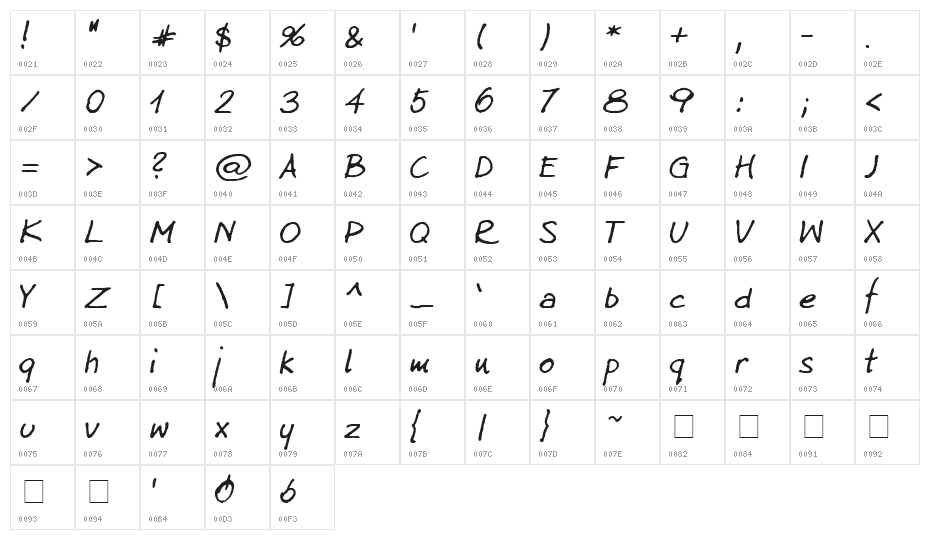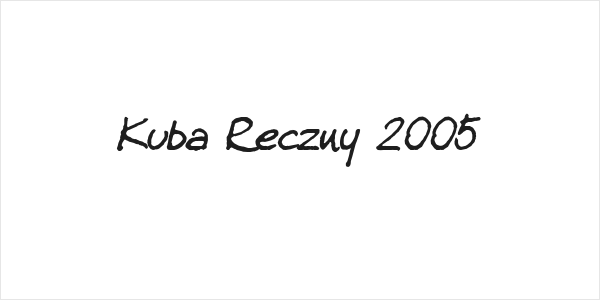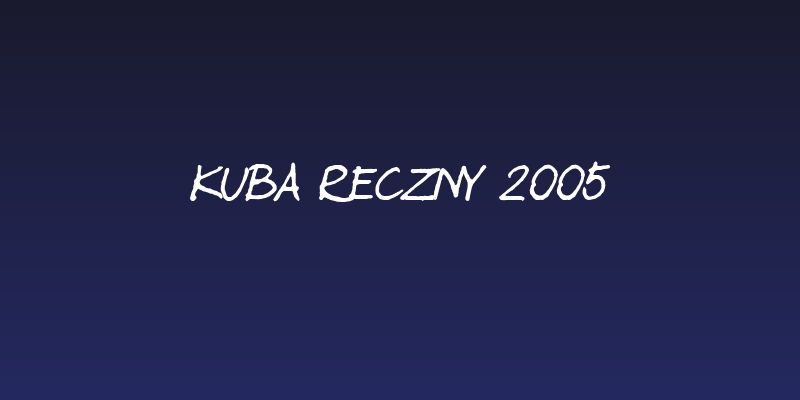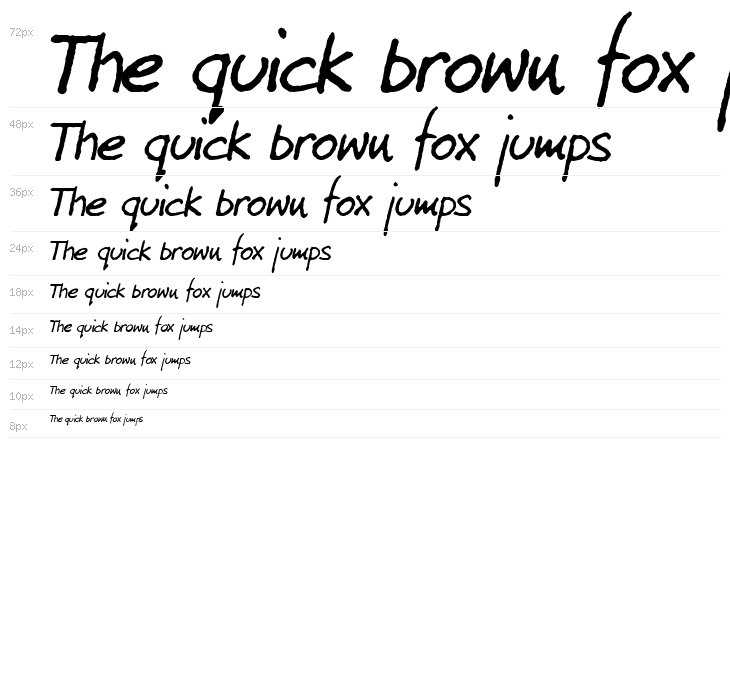
Kuba Reczny 2005 Font
Kuba Reczny 2005 Description
This font exhibits a handwritten style with a casual and organic appearance. The letters are slightly slanted, giving a dynamic and informal feel. The strokes are uneven, mimicking the natural flow of handwriting, which adds a personal touch. The uppercase and lowercase letters maintain a consistent style, with rounded edges and varying stroke thicknesses. Numbers and special characters follow the same handwritten aesthetic, ensuring uniformity across all characters. This font is ideal for projects that require a personal or artistic touch, such as invitations, greeting cards, or creative branding.
| Overall Style | Casual, Artistic |
| Use Case | Headlines, Creative projects, Personal notes |
| Proposed Projects | Ideal for invitations, greeting cards, artistic branding, and personal projects. |